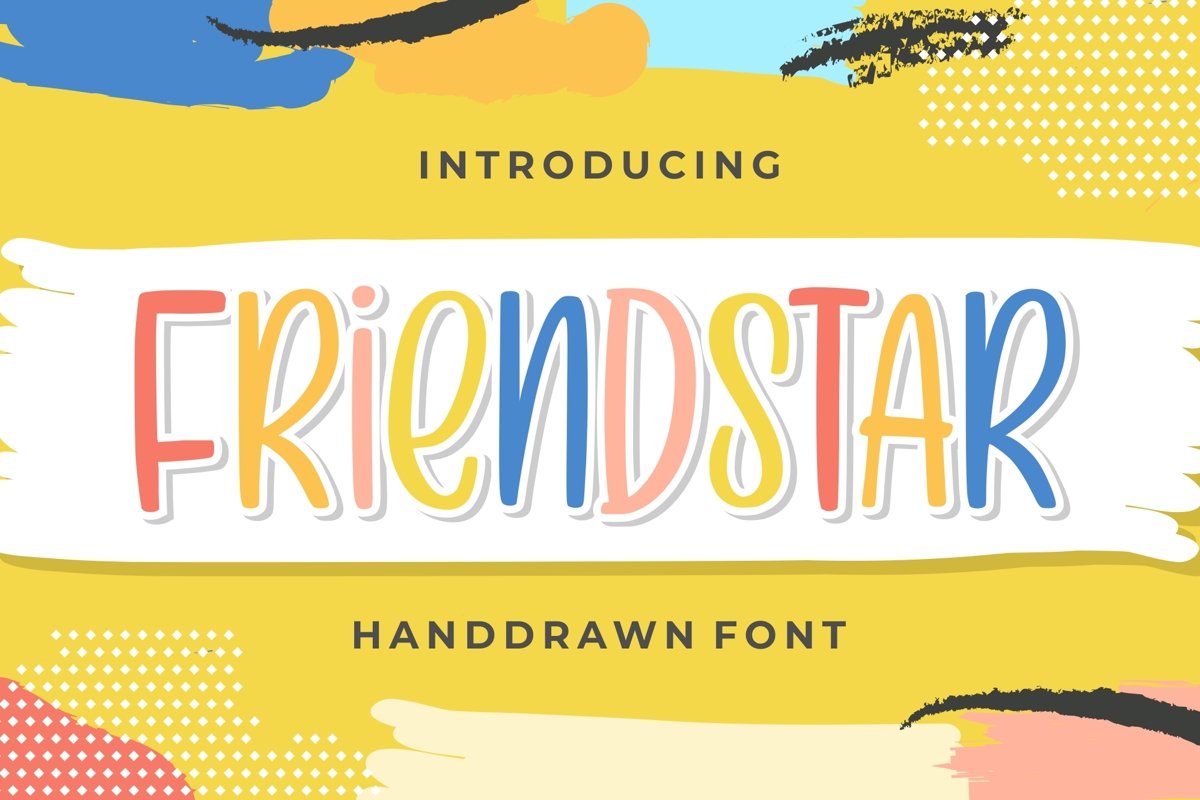
Friendstar - Handdrwan Font
Friendstar
Introducing Friendstar - Handdrwan Font
Friendstar  is the perfect font for all your fun designs. The main font file is equipped with ordinary characters. Everything is made with the funny brush. So you can be sure they will work well together! It is suitable for you to use in making t-shirt design, quote, label, packaging, logo type, or long writing. Because we have compiled kerning and matrices that are tailored to your needs.
Friendstar  features:
- Suitable for crafter and cutting
- Opentype Features (Stylistic Alternates and Ligatures)